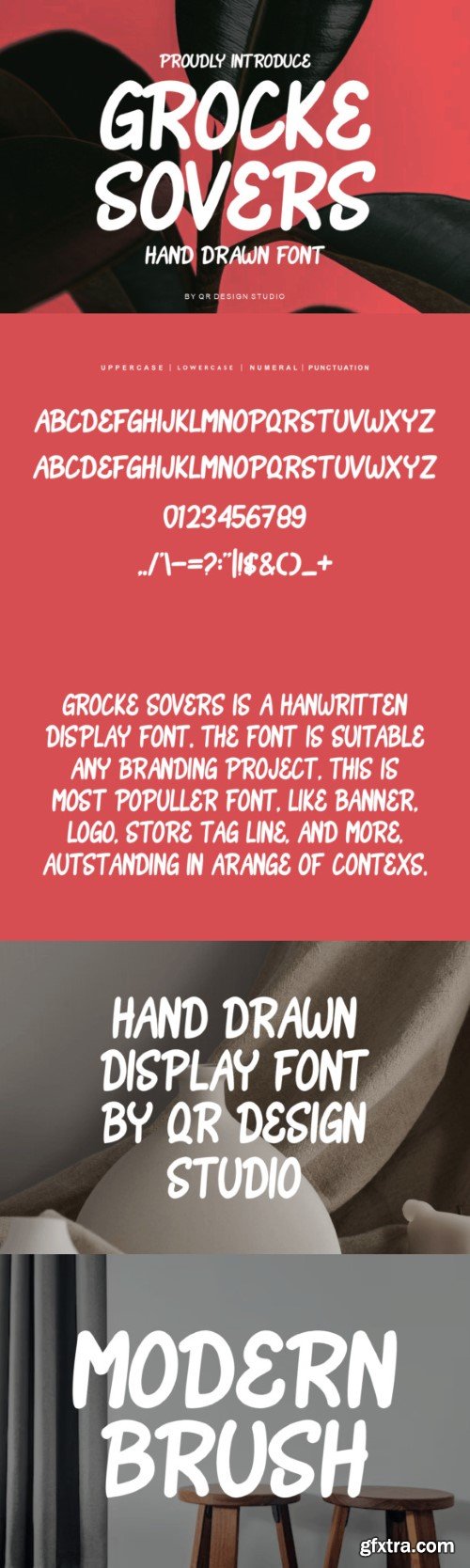
格罗克·索沃斯字体
Grocke Sovers Font is a brush and authentic display font.
The font is suitable for any branding project like logo, sport, and many more.
Outstanding in a wide range of contexts.